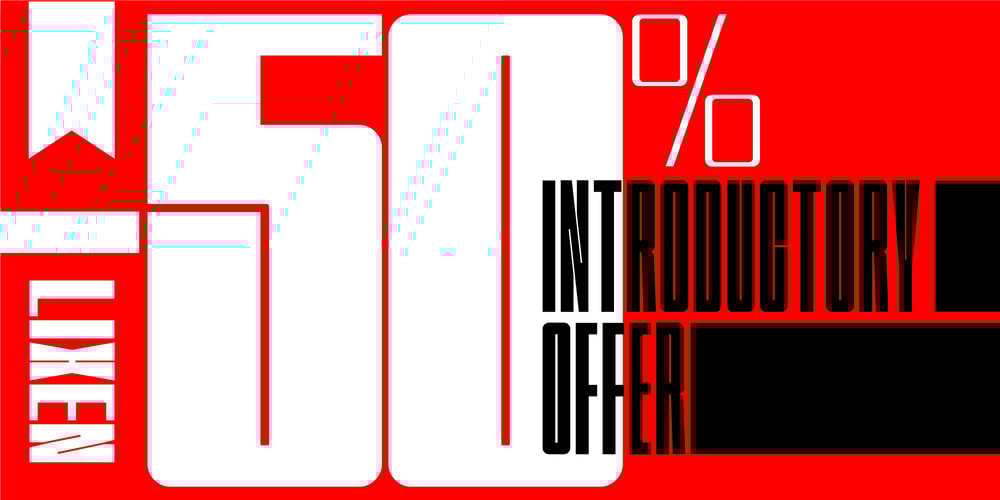
TWS Lixen
TWS Lixen font
TWS Lixen Font Family was designed by Aleksander Sukiasov, Sergio Titenkov and published by Ten Waffle Studio. TWS Lixen contains 10 styles and family package options. A contemporary grotesque with Swiss precision, designed by Aleksander Sukiasov and Sergio Titenkov. This variable font offers exceptional legibility, clarity, and a clean, modern aesthetic. Ideal for brands, headings, and display use where a distinct, contemporary voice is needed.